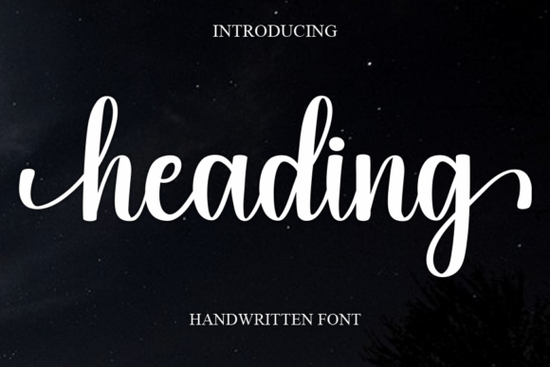
If you've been searching for a handwritten font that feels both elegant and approachable, the Heading Font is worth a close look. It's a sweet, cursive typeface with a gentle flow that works beautifully across branding, wedding stationery, greeting cards, and print-on-demand designs. The slightly romantic style gives projects a personal, handcrafted feel without looking messy or overly casual. For anyone building a visual brand or creating products to sell, this kind of font fills a real gap between formal scripts and playful lettering.
What Makes This Handwritten Font Different from Other Script Fonts?
A lot of script fonts lean too far in one direction either too formal and stiff, or too loose and hard to read. The Heading Font sits comfortably in the middle. The letterforms are connected in a natural, flowing way, but each character is still clear enough to use in longer phrases and short paragraphs. That balance matters when you're designing something like a logo or a product label where readability is just as important as style.
Compared to bolder options like the Hiragenda font, which has a thicker stroke and more dramatic presence, Heading keeps things soft and light. That makes it a better fit for projects that need warmth without heaviness think bridal shower invitations, boutique packaging, or social media quotes.
Where Does This Font Work Best?
Because of its romantic, handwritten quality, this font shines in a handful of specific design contexts:
- Wedding invitations and save-the-dates the cursive flow pairs well with floral motifs and soft color palettes
- Branding for small businesses bakeries, florists, boutiques, and lifestyle brands that want a friendly, personal touch
- Greeting cards birthday, thank-you, and Valentine's cards where you want something heartfelt but not overly formal
- Social media graphics quotes, announcements, and promotional posts that need to stand out in a feed
- Print-on-demand products mugs, tote bags, and apparel where a hand-lettered look adds perceived value
- Fashion lookbooks and marketing materials the casual elegance works well for lifestyle and beauty brands
If you're working on a summer-themed project, you might also check out the Summer Cupcake font for something with a more playful, lighthearted vibe. It pairs surprisingly well alongside Heading when you want to mix a fun display font with a more refined script.
How Does It Pair with Other Fonts?
One of the most useful things about a handwritten script font like this is how well it plays with other typefaces. A few pairing ideas:
- With a clean sans-serif use Heading for headlines or names, and a simple sans-serif for body text. This keeps the design grounded and readable.
- With a serif font for a more classic, editorial look, pair it with a light serif. This works well for wedding suites and lookbook layouts.
- With another script font mix it with a different style of script, like the Summer Love font, for layered, textured designs. Just make sure the two scripts have different weights or slants so they don't compete.
The Alluna font is another option worth exploring if you like the handwritten aesthetic but want something with slightly different letter connections and spacing. Having a few script fonts in your toolkit gives you flexibility when clients or projects call for a specific mood.